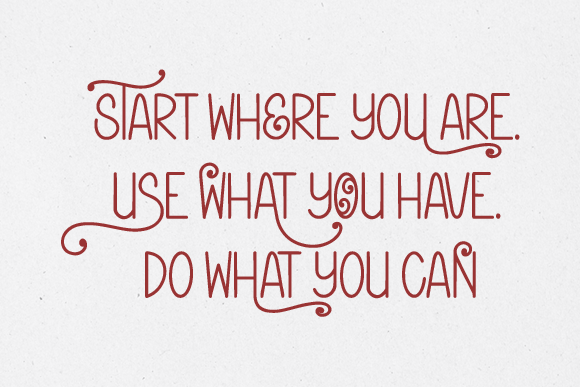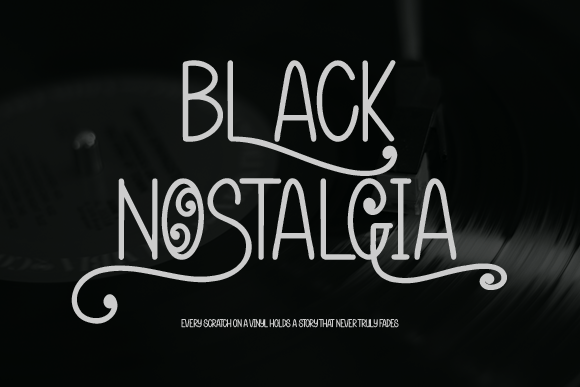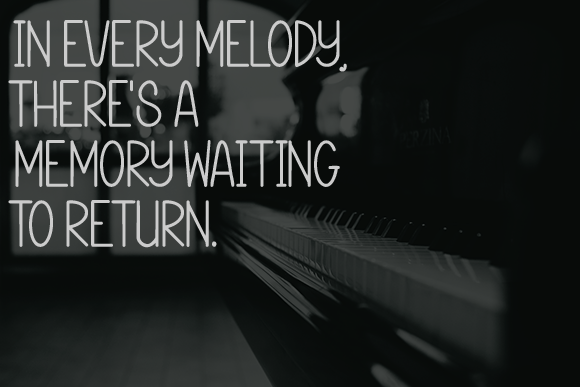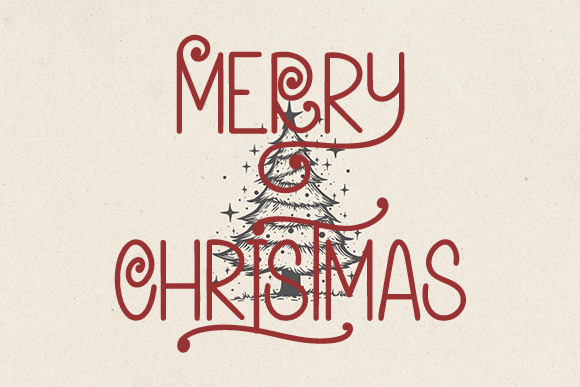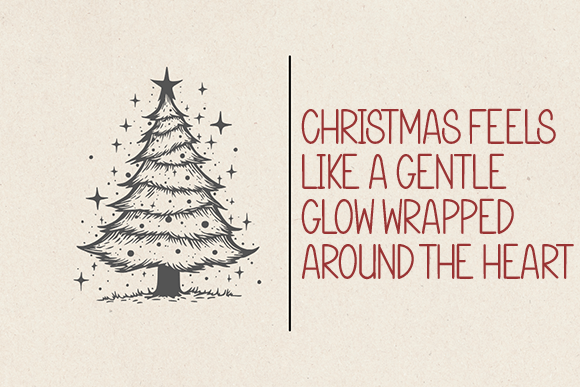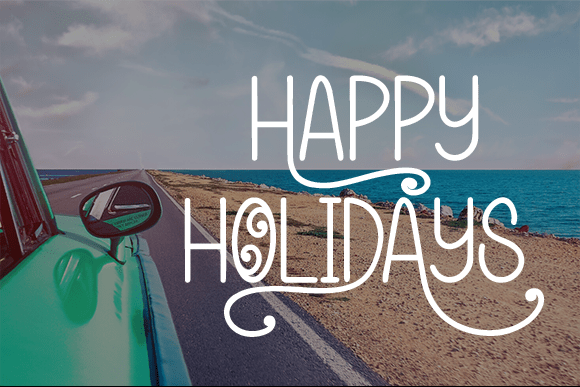
Introducing Enchanted Prismatic Font: Add a Touch of Magic to Your Designs
Are you looking for a font that can add a whimsical and artistic touch to your creative projects? Look no further than Enchanted Prismatic, a decorative display font that is sure to cast a spell on your designs. With its magical swirl accents and elegant handcrafted lines, this unique fantasy-inspired typeface is perfect for designers, crafters, and small business owners who want to add a touch of magic to their work.
What Makes Enchanted Prismatic Font So Special?
Enchanted Prismatic Font is a one-of-a-kind decorative display font that features smooth curves, playful flourishes, and eye-catching ornament details. Its stylish swashes and spiral elements give your work a distinctive, handcrafted feel that stands out instantly. Whether you’re creating branding materials, product packaging, wedding invitations, fairytale illustrations, children’s books, logos, greeting cards, quotes, posters, or any other project that needs a charming and magical look, Enchanted Prismatic Font is the perfect choice.
Enchanted Prismatic Font is ideal for a wide range of projects, including:
- Display titles & headlines
- Quotes & lettering designs
- Merch & t-shirt designs
- Scrapbooking & craft projects
- Branding & product packaging
- Wedding invitations & fairytale illustrations
- Children’s books & educational materials
- Logos & business cards
- Greeting cards & posters
Why Choose Enchanted Prismatic Font?
There are many reasons why Enchanted Prismatic Font stands out from the crowd. Here are just a few:
- Unique and eye-catching design: Enchanted Prismatic Font features a one-of-a-kind design that is sure to grab attention and add a touch of magic to your projects.
- Elegant and whimsical feel: This font has a sophisticated and elegant feel, while also being playful and whimsical.
- Handcrafted details: The font features handcrafted details, including swashes and spiral elements, that give your work a distinctive and artistic feel.
- Versatile: Enchanted Prismatic Font can be used for a wide range of projects, from digital designs to print materials.
How to Use Enchanted Prismatic Font
- Experiment with different sizes and colors: Enchanted Prismatic Font looks great in a variety of sizes and colors. Experiment with different combinations to find the one that works best for your project.
- Pair with other fonts: Enchanted Prismatic Font pairs well with other fonts, including serif and sans serif fonts. Try pairing it with a simple font to create a striking contrast.
- Use swashes and flourishes: The swashes and flourishes in Enchanted Prismatic Font are a key part of its design. Use them to add a touch of elegance and whimsy to your project.
Enchanted Prismatic Font is a unique and versatile decorative display font that is perfect for designers, crafters, and small business owners who want to add a touch of magic to their work. With its elegant and whimsical design, handcrafted details, and versatility, this font is sure to become a favorite in your design arsenal. So why wait? Download Enchanted Prismatic Font today and start creating enchanting designs that will leave a lasting impression.